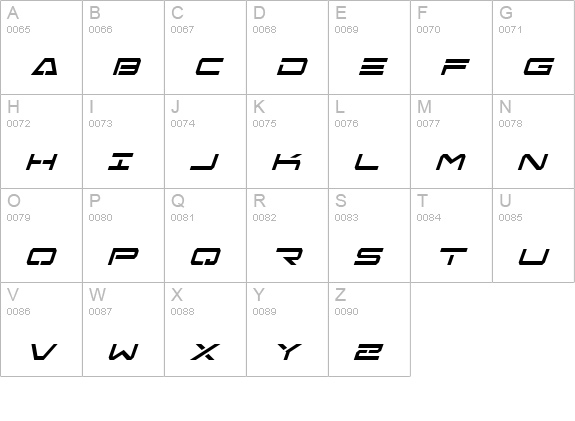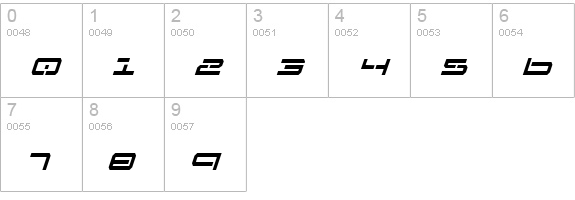
Free Agent Condensed Italic is a distinctive, condensed-width, italic variant in the Free typeface family \xE2\x80\x94 well suited to design and typography projects.
The Free Agent Condensed Italic font exudes a sense of modern sophistication with its sleek and stylish design. The italicized form adds a touch of elegance and flair to any project, making it perfect for a variety of creative applications. The condensed aspect of the font allows for efficient use of space while still maintaining readability and impact. What sets Free Agent Condensed Italic apart is not just its striking aesthetics, but also its accessibility. As the name suggests, this font is free for all to use and enjoy. You can easily download it at FontsMarket.com, where it is readily available for your design needs. Whether you're working on a professional presentation, a personal project, or anything in between, Free Agent Condensed Italic is a versatile and eye-catching choice that is sure to elevate your work to the next level.